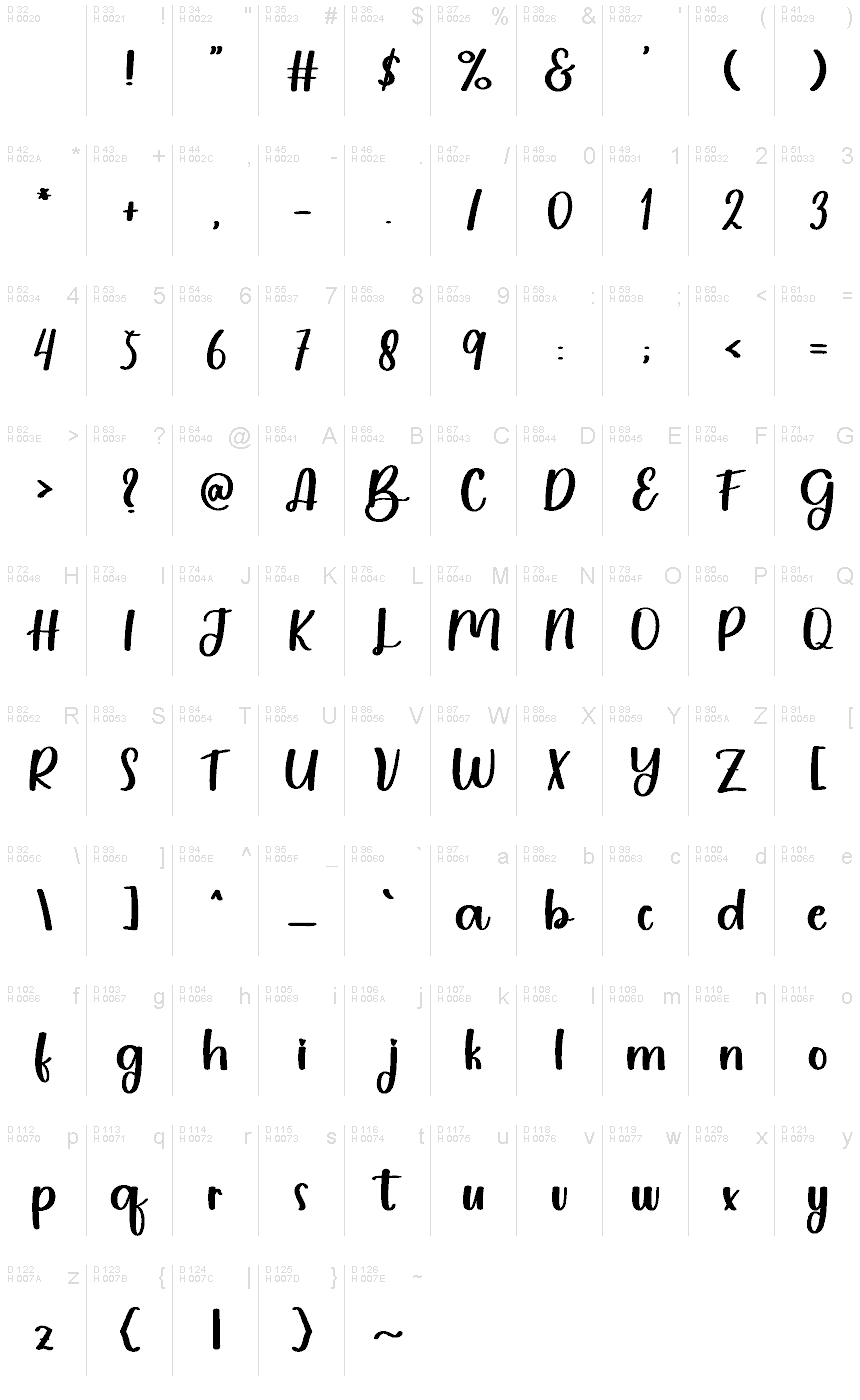
Pink Line
Pink Line font is a free brush font from One Design that exudes elegance through its smooth flowing design. It carries a casual and modern style with whimsical elements resulting from its organic shapes and lines. Each character inspires an expressive mood which combines beautifully for interesting word combinations.
Use Pink Line font for events, invitations, signage, branding designs, or printed cards. It’s a suitable choice for fonts in logos and apparel as it works well both on large and small dimensions. Additional use cases include product packaging, typography quotes, magazine headings, book covers, digital ads headers or photos captions.